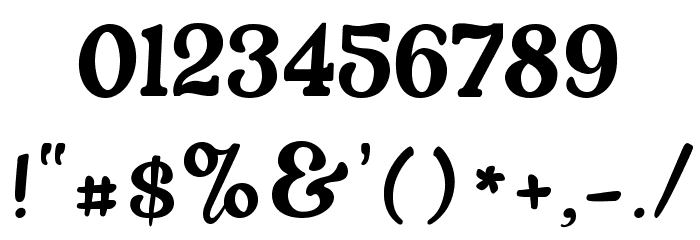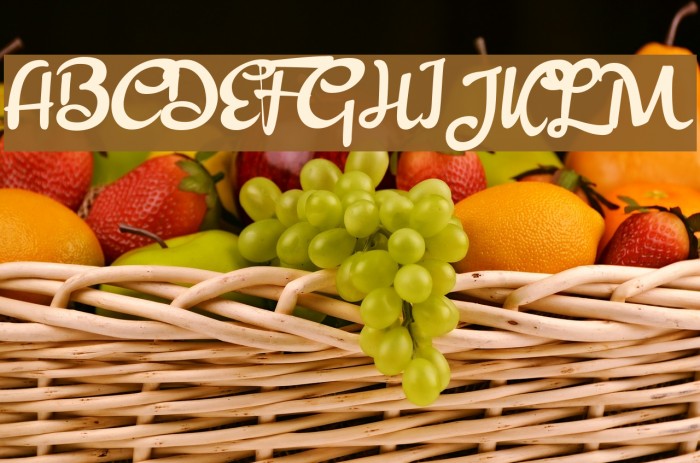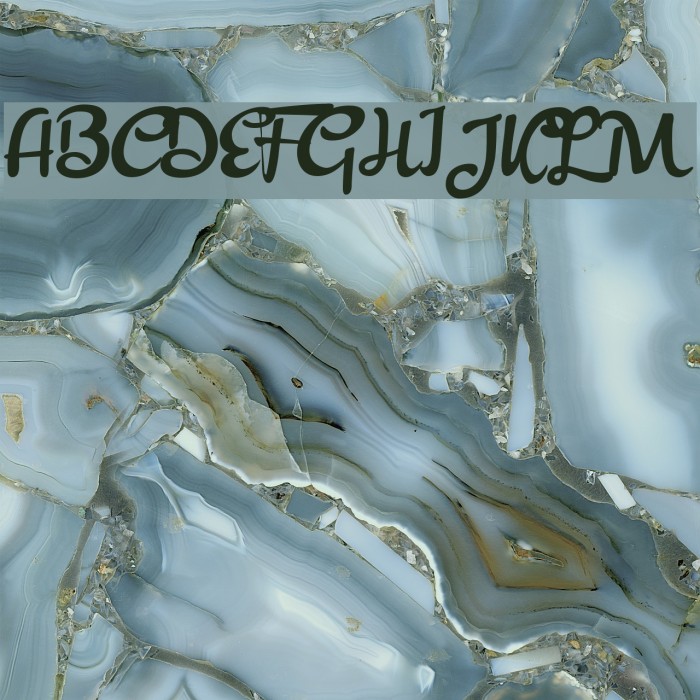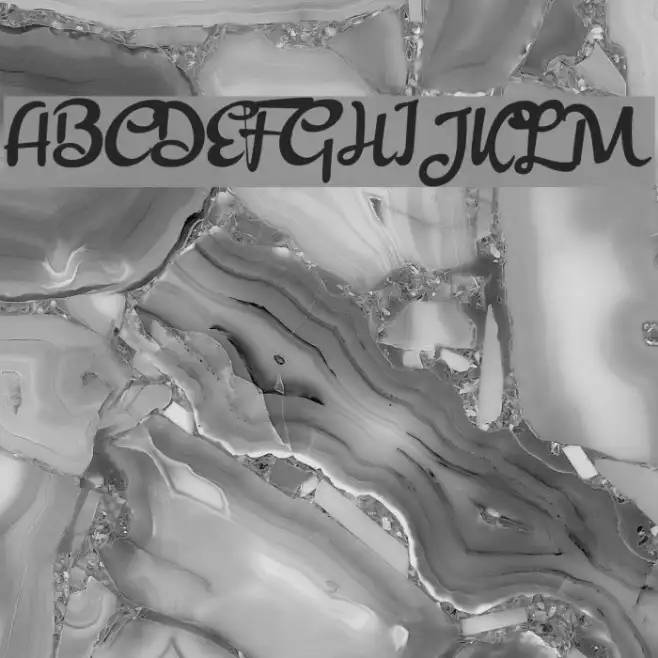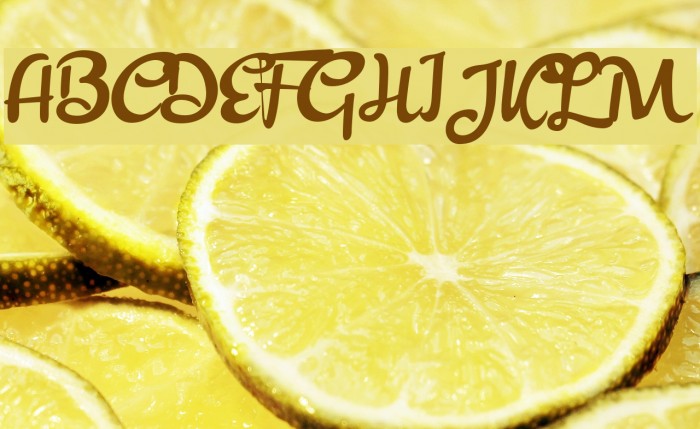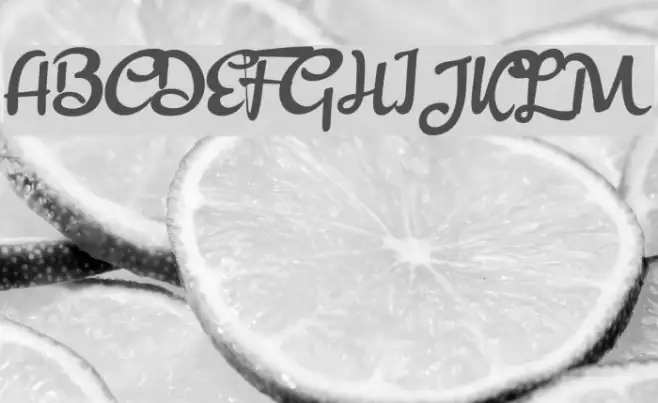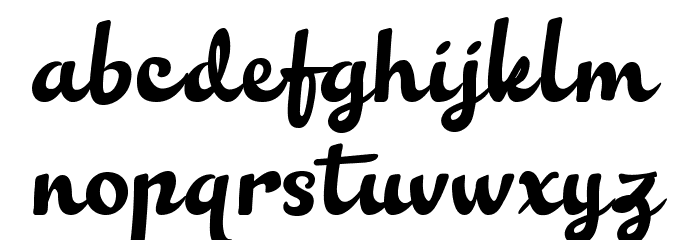
Barton Graph Font
Barton Graph Description
This font features a bold, cursive style with a playful and dynamic appearance. The uppercase letters are characterized by their flowing, interconnected strokes, giving them a sense of movement and elegance. The lowercase letters maintain the same cursive style, with smooth curves and loops that enhance readability while retaining a decorative flair. The numerals are bold and consistent with the overall style, ensuring they stand out while remaining cohesive with the letterforms. Special characters are designed to match the playful and fluid nature of the font, making them suitable for a variety of creative applications. The font's thick strokes and high contrast between thick and thin lines add to its bold and expressive nature, making it ideal for projects that require a touch of personality and flair.
| Use Case | Logos, Invitations, Greeting Cards |
| Proposed Projects | Ideal for creative projects such as invitations, greeting cards, logos, and branding materials that require a touch of elegance and playfulness. |